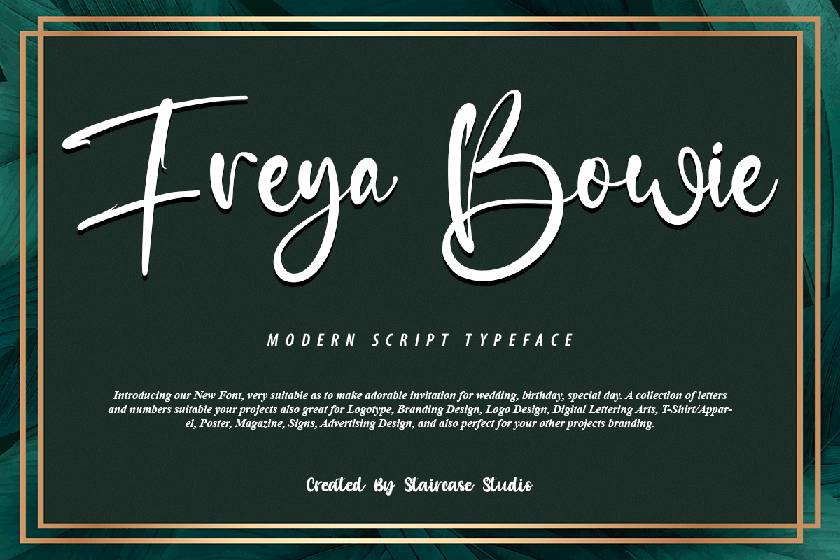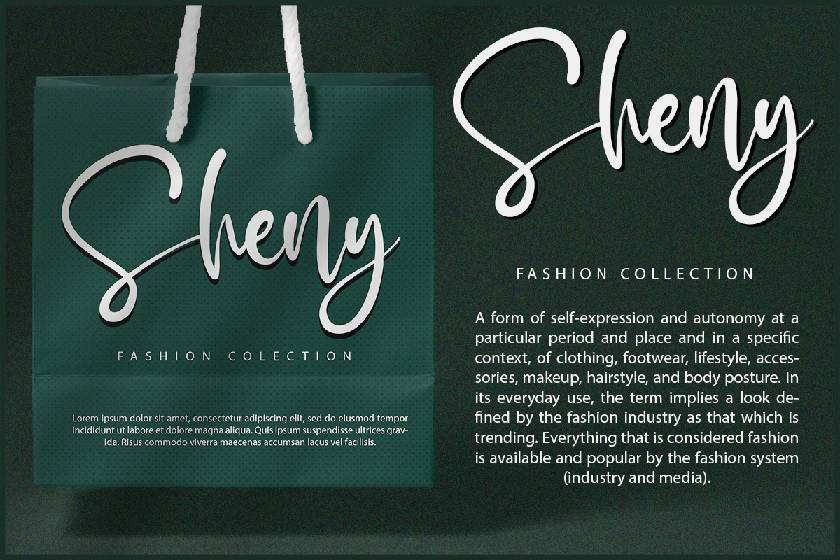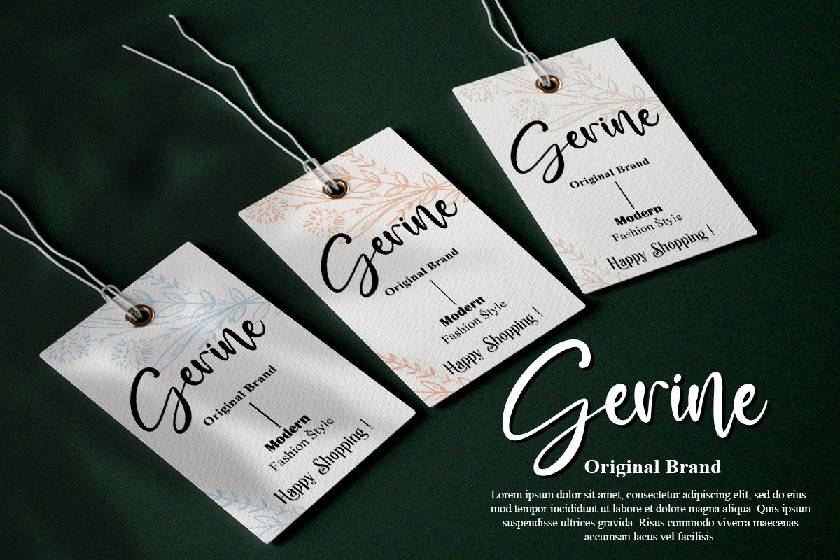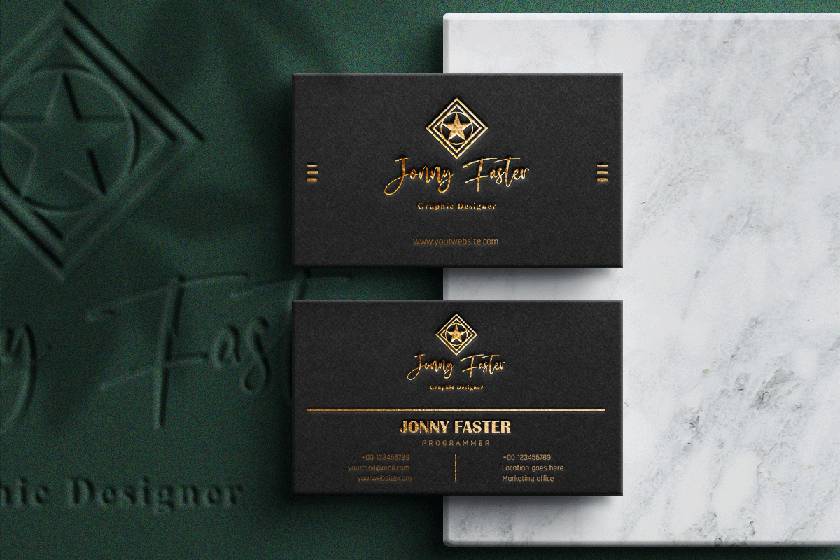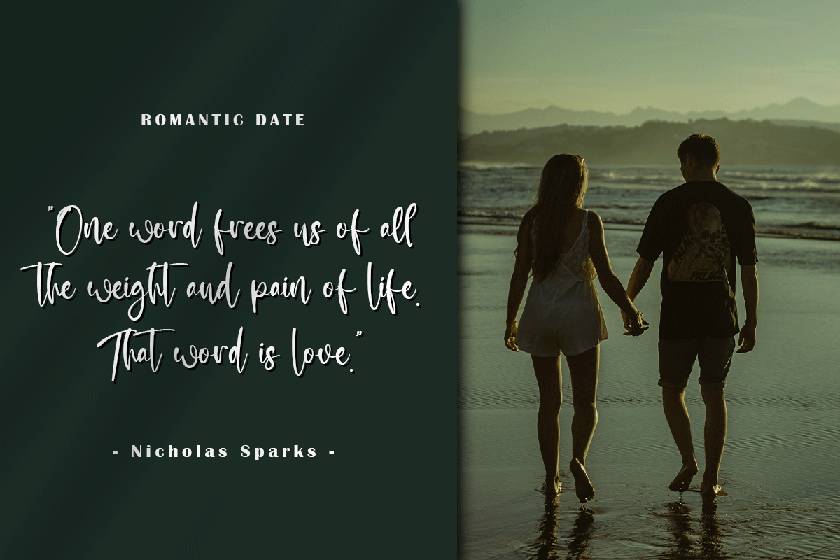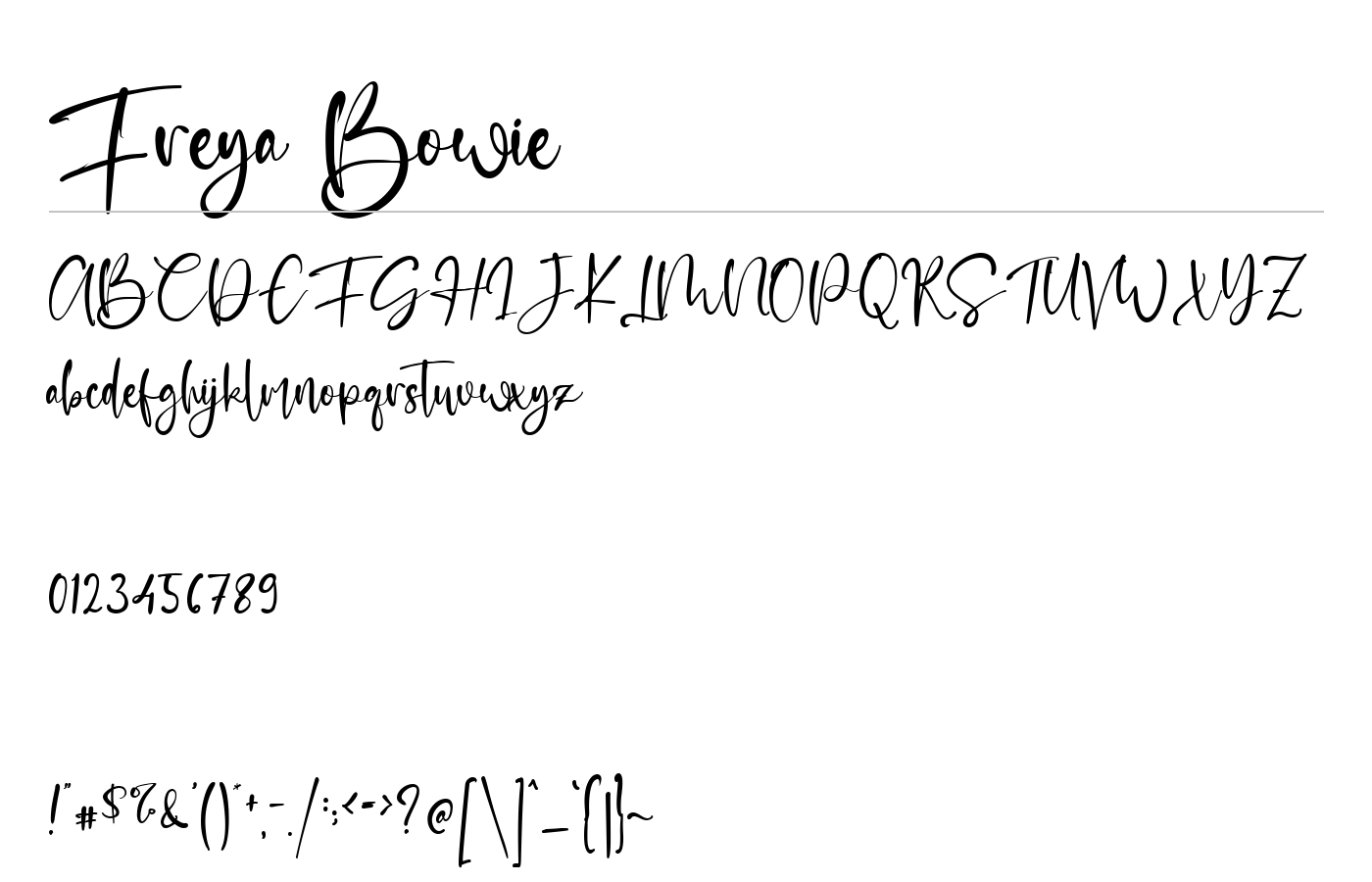
Freya Bowie is a lively and elegant handwritten script font characterized by its slender, flowing letterforms and playful, slightly irregular strokes that convey a personal and artistic touch. Its tall x-height and fluid connections make it perfect for adding a whimsical yet refined feel to branding, invitations, and creative projects where a modern, stylish, and approachable look is desired. This font shines in uses that benefit from a fresh, handcrafted vibe, especially in fashion, beauty, and lifestyle contexts.
Freya Bowie Font
About Freya Bowie Font